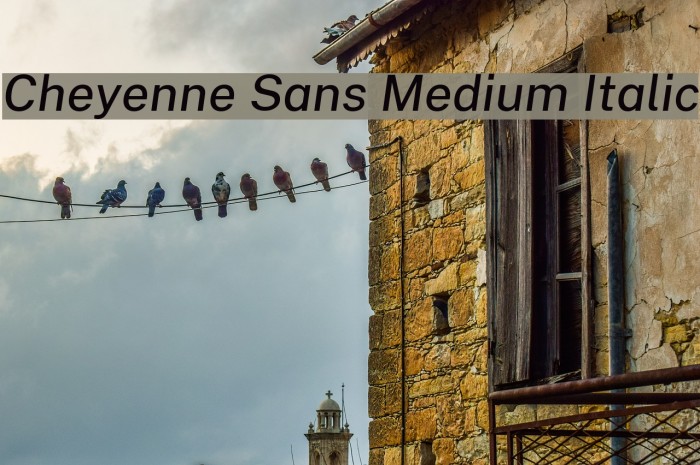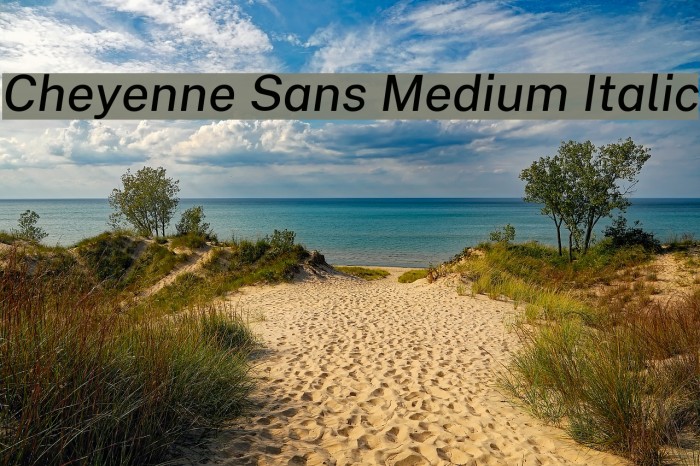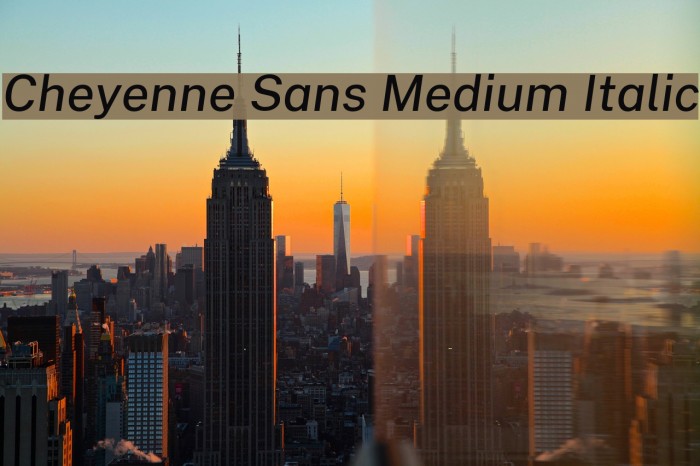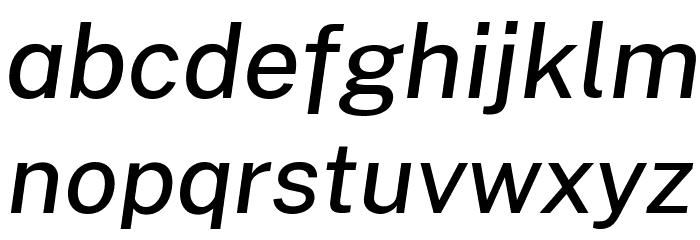
Cheyenne Sans Medium Italic Font
Cheyenne Sans Medium Italic Description
This typeface features a clean and modern sans-serif design with a medium weight and italic style. The characters are slightly slanted, giving a dynamic and forward-moving appearance. The strokes are consistent in thickness, providing a uniform look across all characters. The font maintains a balanced proportion between height and width, ensuring readability while adding a touch of elegance. The spacing between characters is normal, allowing for clear legibility in both small and large text sizes. Its simplicity and clarity make it versatile for various design applications.
A modern, medium-weight sans-serif font with an italic style and clean lines from Uncategorized fonts.
- Proposed Projects: Ideal for branding, advertising, and editorial design where a modern and professional look is desired.